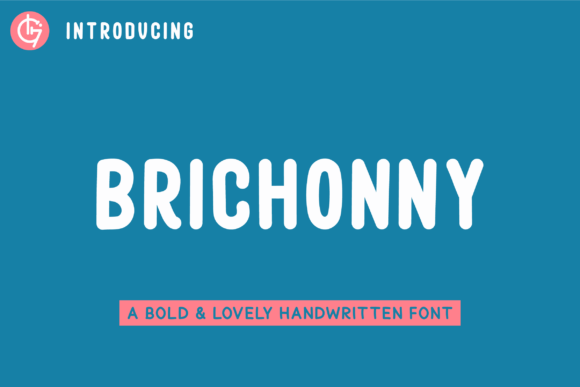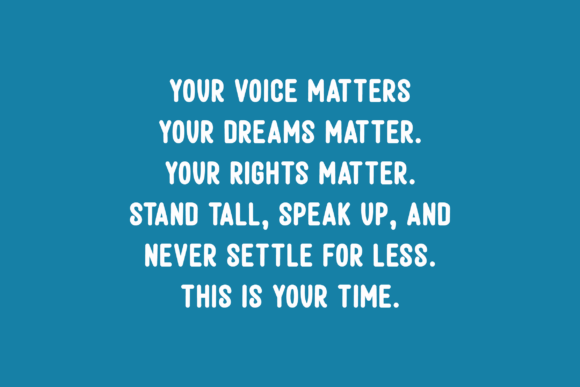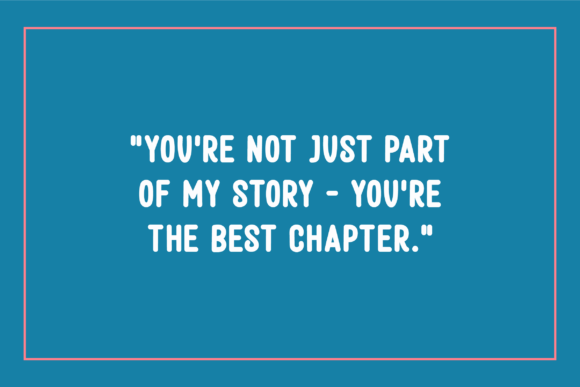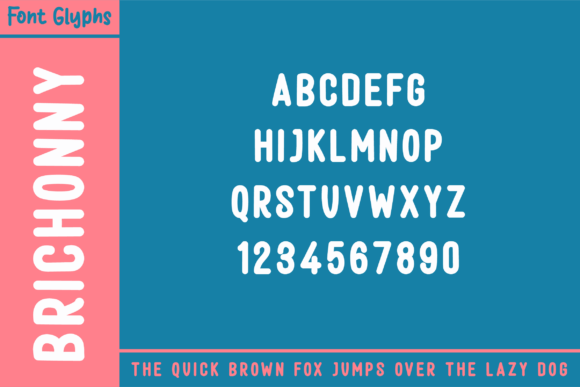
Brichonny Font: A Bold Handwritten Font for Cricut, Crafting & Social Media Design
About the Brichonny Font
Step up your design game with Brichonny Font, a font that exudes confidence and style. Brichonny is a quirky all caps font made up of capital letters A-Z, numbers 0-9, accented characters and punctuation. This font is perfect for social media or crafty projects. Simple and smooth perfect for crafting, t-shirts, decals, cards, invitations and so much more.
Brichonny’s quirky all-caps style is ideal for headlines, short impactful statements, and branding elements where a playful yet sophisticated feel is desired. It works exceptionally well on logos, posters, and short-form social media content. However, its uppercase-only nature and relatively informal character make it unsuitable for body text or lengthy paragraphs. Avoid using it for UI elements or situations requiring high readability.
Pairing Brichonny effectively depends on the desired balance. For a bolder, more modern aesthetic, consider pairing it with a geometric sans-serif like Montserrat or a clean, neutral font such as Lato. To soften its quirky edge and create a more elegant feel, a classic serif typeface like Garamond or a flowing script like Pacifico would work well.
Brichonny projects a bold, friendly personality with a touch of vintage charm. Brands targeting younger demographics or those with a playful, handcrafted image will find it particularly effective.
Brichonny Font Usage Examples
Brichonny Font Example